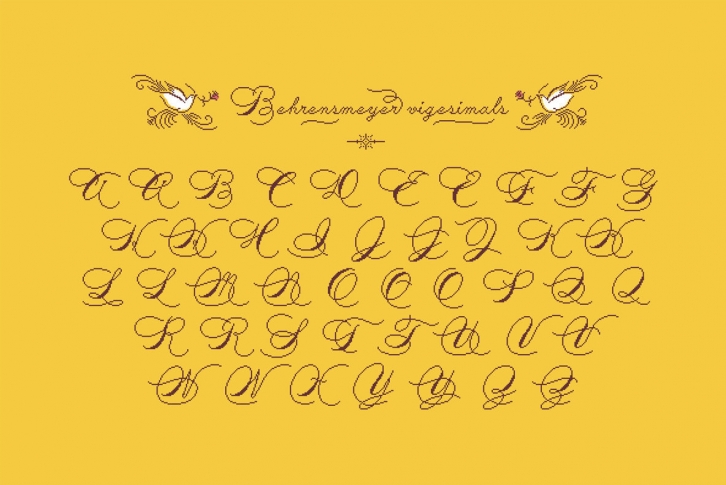
This 8-bit pixel font is designed with respect for 80s game designers and the pixel font pioneers in middle 90s. And for the calligrapher H.P. Behrensmeyer & Charles Paxton Zaner. Use at size 20 pixels or multiples of 20 and anti-alias off is recommended.